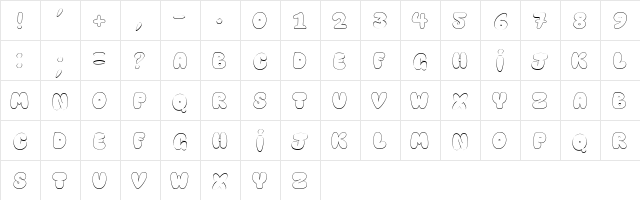
Happy brown cat Regular
Happy brown cat is a composed and adaptable typeface that performs quietly and consistently across a wide range of design contexts.